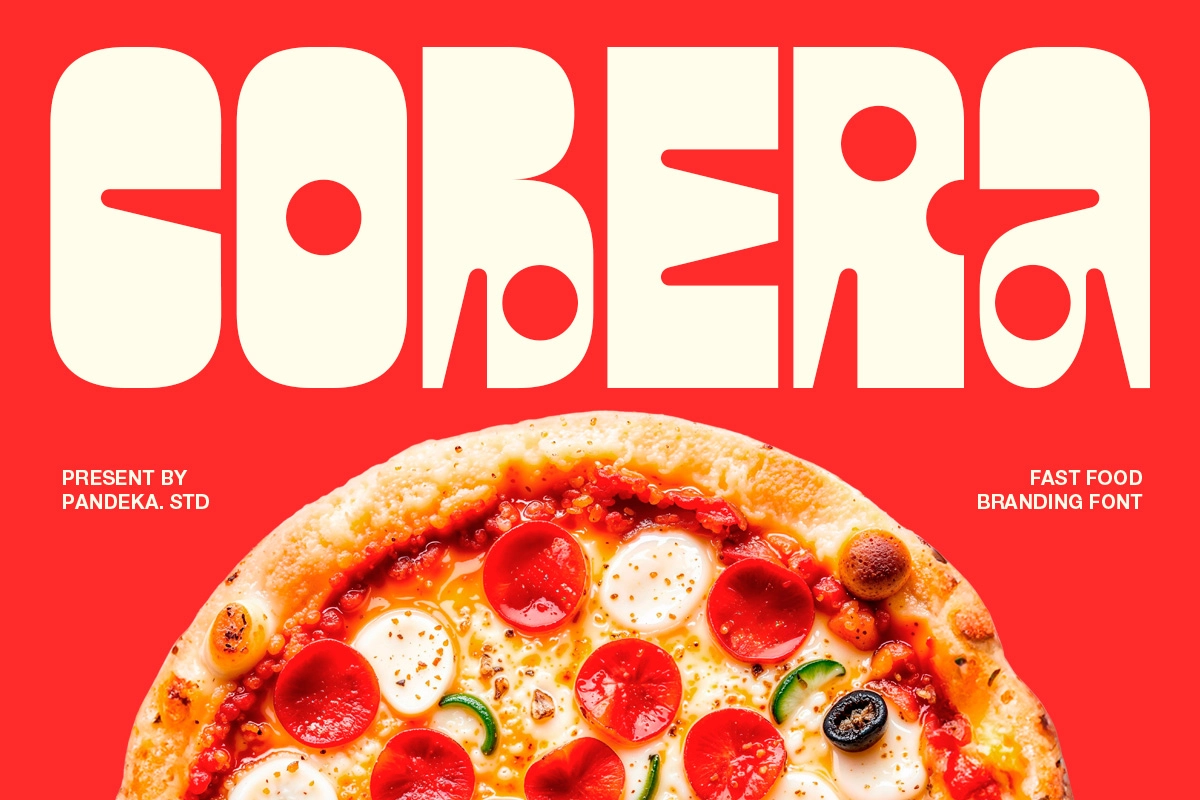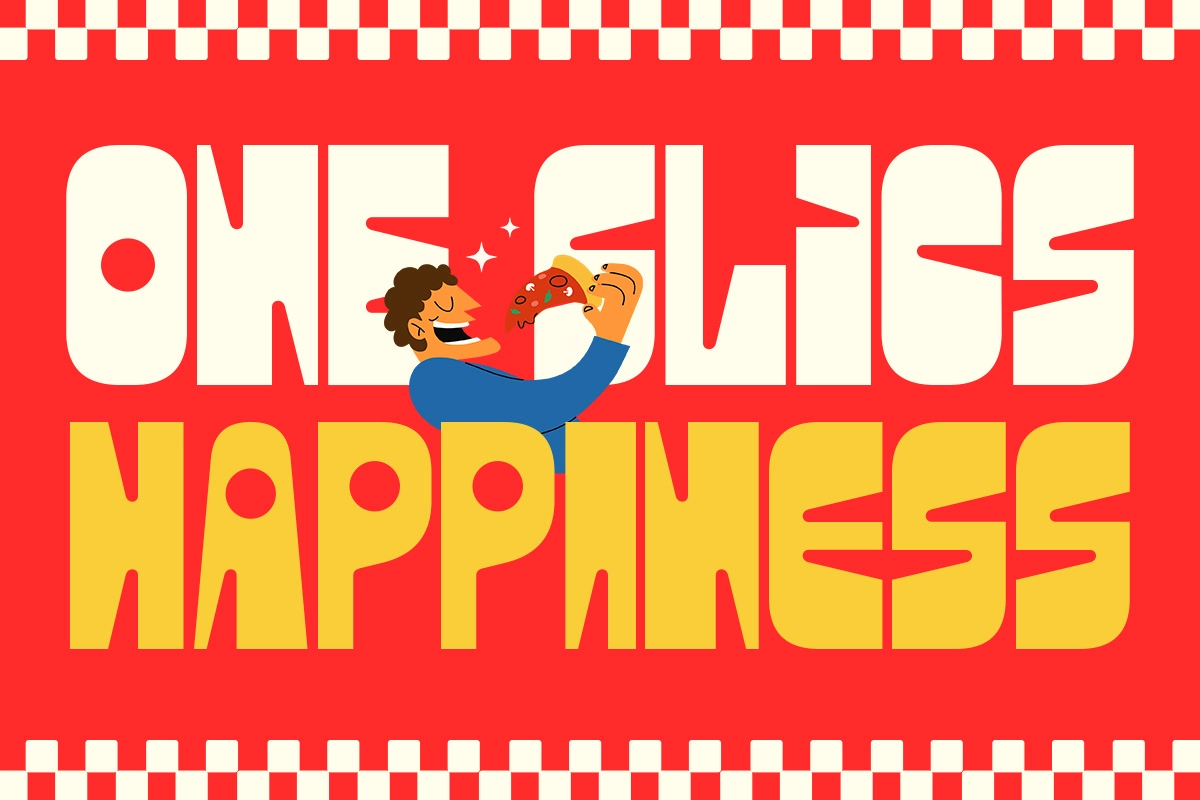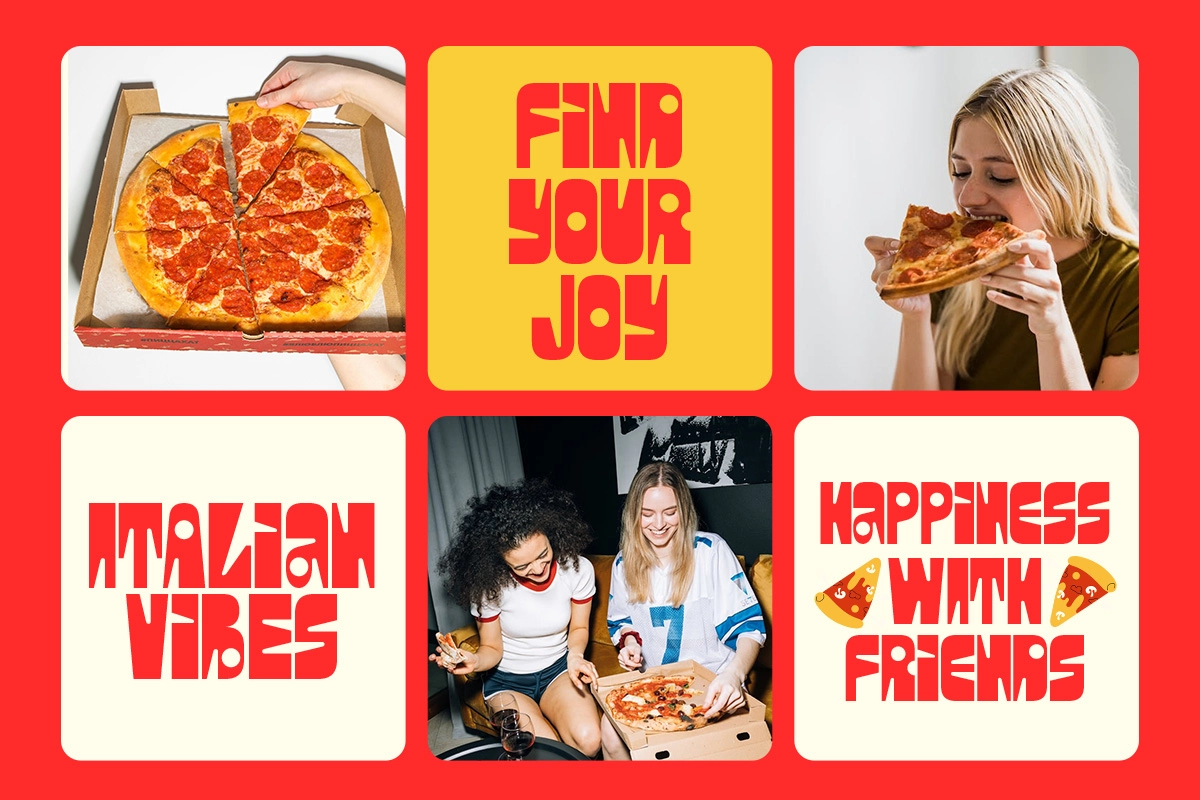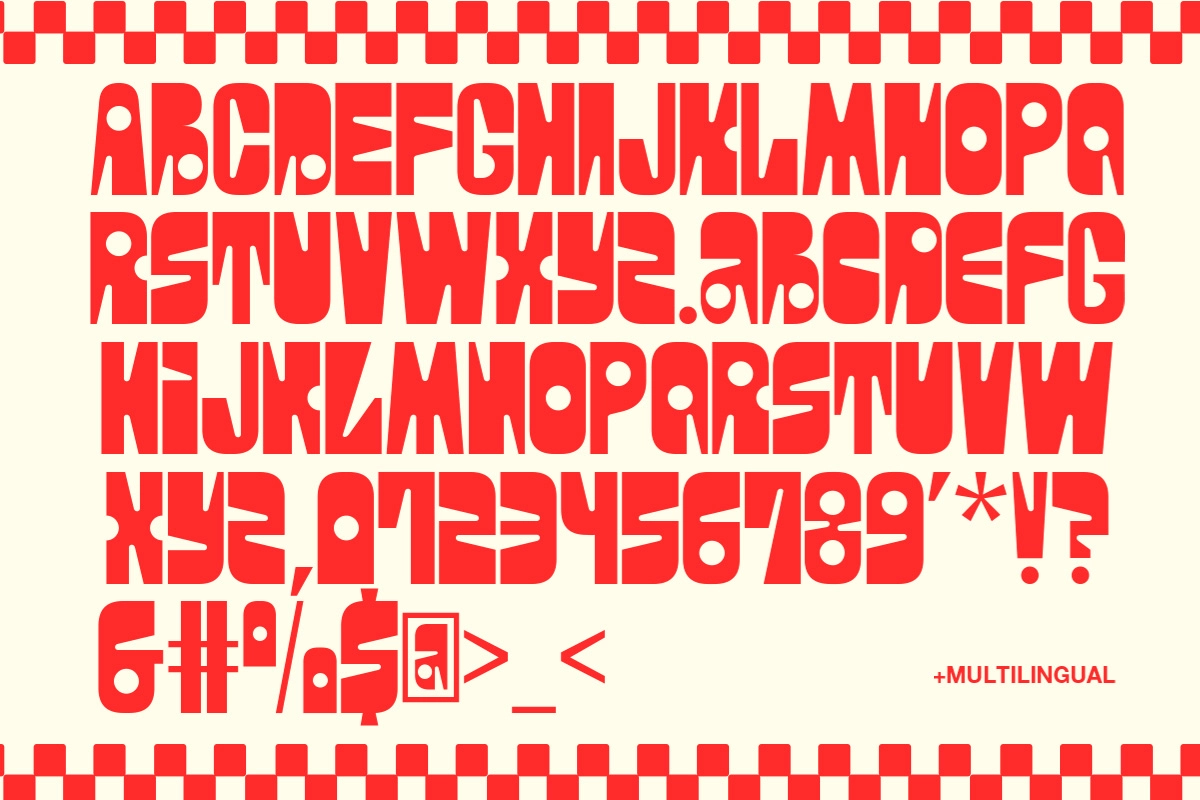
Cobera - Bold Bubble Font
Cobera
Cobera is a bold bubble font with chunky rounded letterforms, tight counters, and a heavy retro-diner weight, echoing 70s fast-food signage and checkerboard menu boards. The rounded shapes hold plenty of graphic punch at large sizes while staying legible in short headline runs.
Cobera works best in short, upbeat lines where a food brand wants to read as fun and appetizing rather than formal. Use it for pizza branding, burger shop logos, snack packaging, food truck signage, restaurant menus, and social media promo graphics.